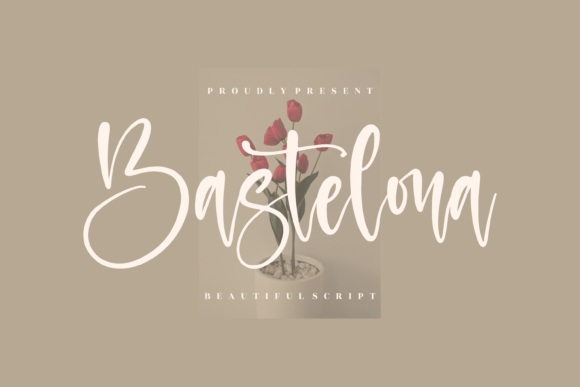
Discover the Perfect Script Font for Your Next Creative Project
Have you ever stared at a blank page, waiting for inspiration to strike? Maybe it’s the blank canvas of your computer screen, or the empty sheet of paper in front of you. Whatever it is, we’ve all been there – searching for that perfect spark to bring our creative ideas to life. And sometimes, all it takes is the right font to set the tone for an entire project.
Enter Bastelona Font, a stunning script font designed to add a touch of elegance and sophistication to any project. Whether you’re working on logos, branding projects, or homeware designs, Bastelona Font is the perfect choice. Its versatility and beauty make it a valuable asset for designers, allowing them to create unique and memorable designs that stand out from the crowd.
Bastelona Font Key Features
- Unique Characteristics: Bastelona Font features a unique blend of geometric and handwritten elements, creating a distinctive and eye-catching visual effect.
Bastelona Font Review
As a designer, I’ve had the chance to work with the Bastelona Font, and I’m excited to share my honest thoughts on it.
- Unique aesthetic: Bastelona Font has a distinctive, hand-drawn feel that sets it apart from other fonts.
- Legibility: The font is surprisingly easy to read, even at smaller sizes.
- Customization options: The font offers a range of styles and weights, making it versatile for various design applications.
- May not be suitable for body text: While the font is legible, it’s still a decorative font and may not be the best choice for large blocks of text.
Bastelona Font is a great choice for designers looking to add a touch of personality to their projects. While it has some limitations, its unique aesthetic and customization options make it a valuable addition to any design toolkit.
Tips for Getting the Most Out of Bastelona Font
Use the Bastelona Font in combination with other fonts to create a visually appealing design. Experiment with different font sizes and colors to add depth and emphasis to your text. Additionally, use the font in conjunction with images and graphics to create a cohesive design.
The Bastelona Font is suitable for a variety of design projects, including logos, business cards, and marketing materials. Its unique design makes it ideal for creating eye-catching headings and titles. You can also use the font in social media graphics and website design to add a touch of elegance and sophistication.